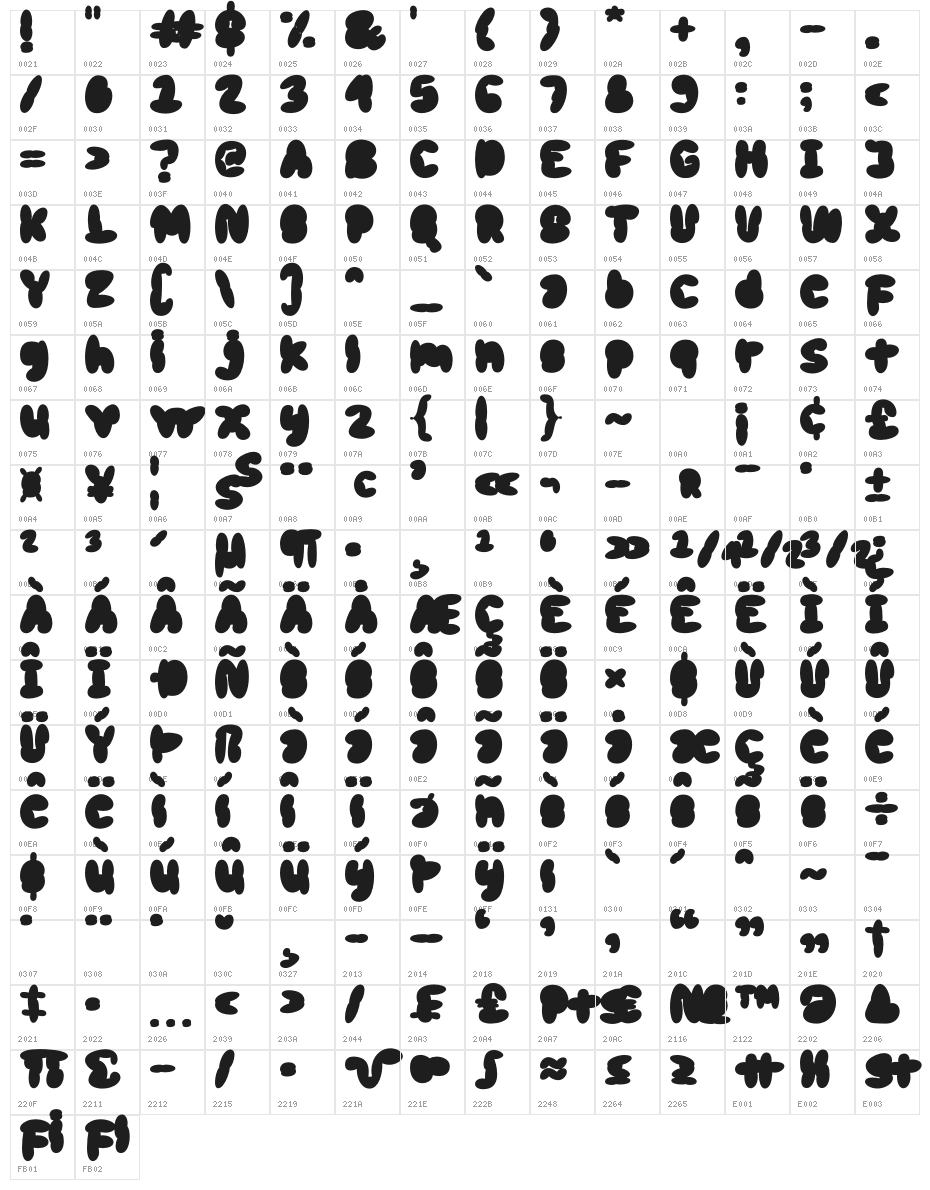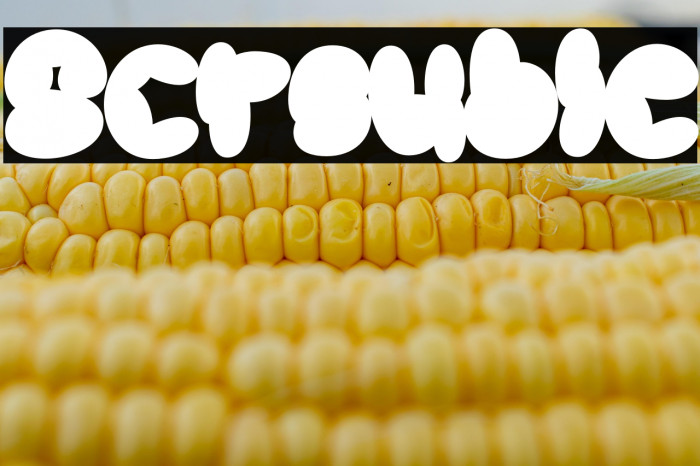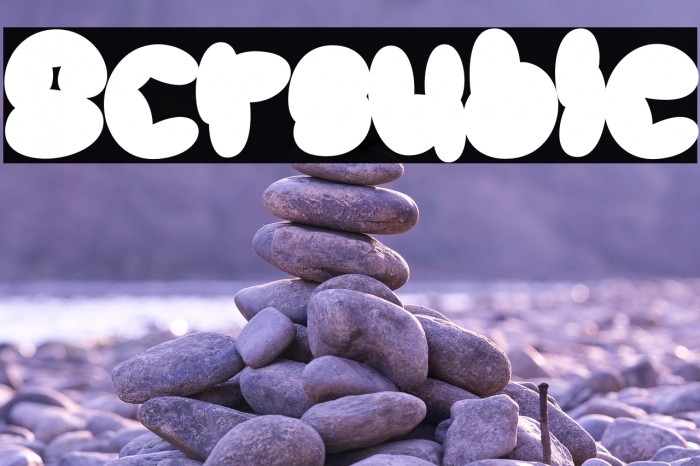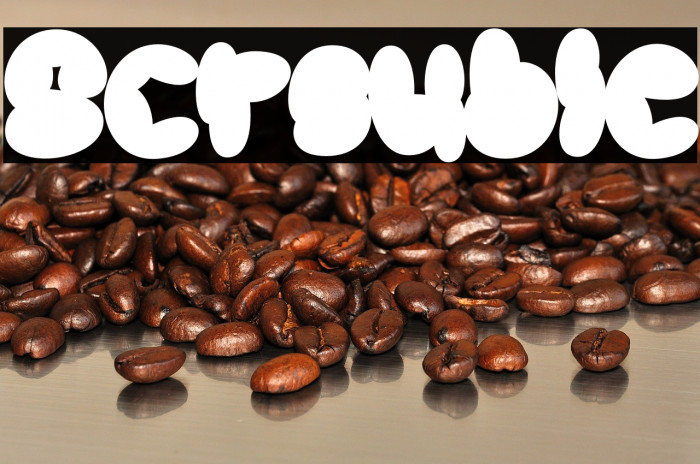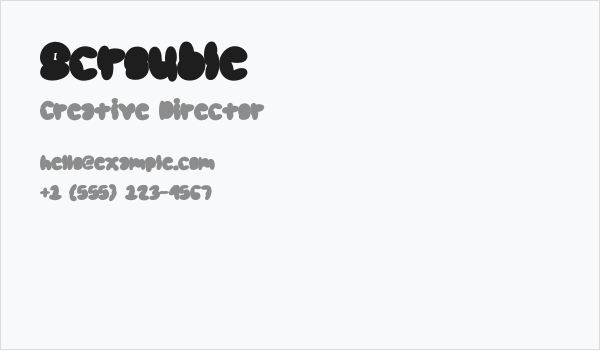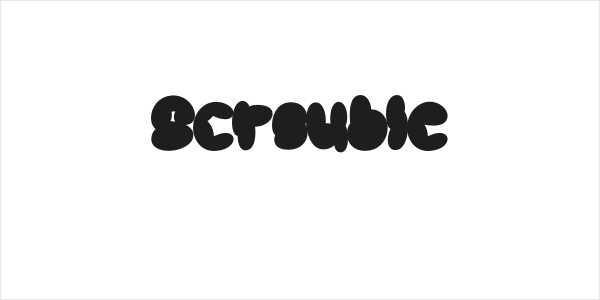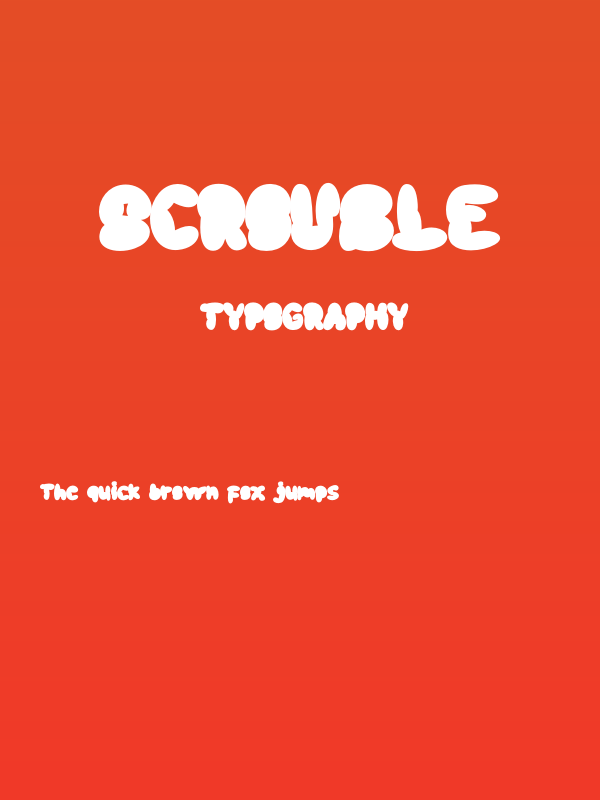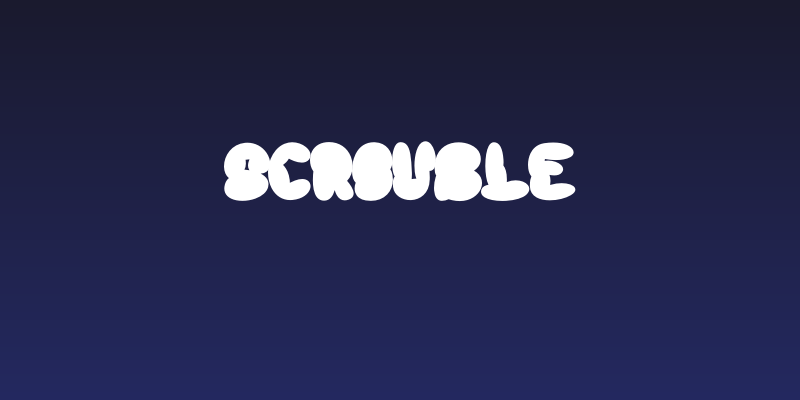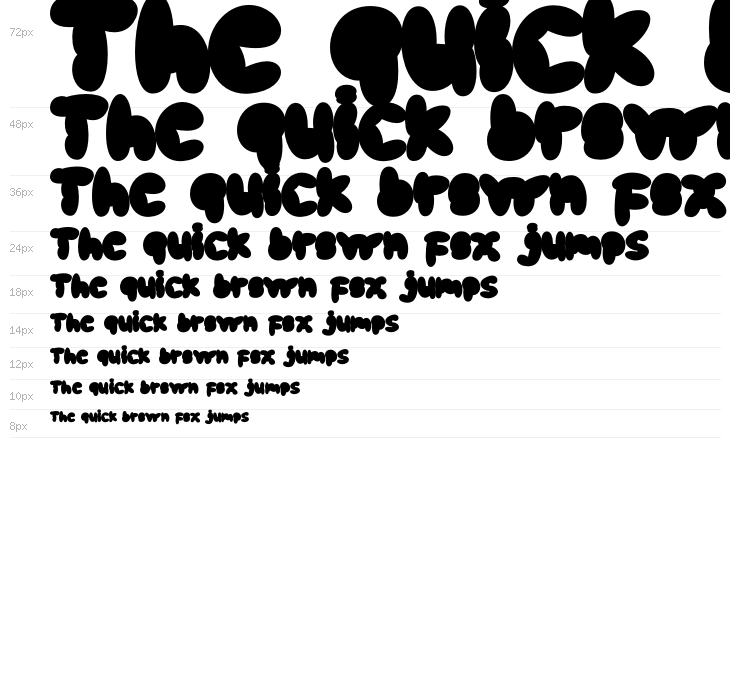
Scrouble Font
Scrouble Description
This font features a bold and playful design with rounded, bubble-like characters that convey a sense of fun and whimsy. The letters are thick and heavy, creating a strong visual impact. Each character is uniquely shaped, with exaggerated curves and a slightly irregular form, adding to its quirky and informal appearance. The font maintains a consistent weight throughout, with minimal contrast in stroke thickness. Its distinctive style makes it ideal for projects that require a bold and eye-catching typeface.
Overall StylePlayful, Quirky
Use CaseHeadlines, Logos, Posters
Proposed ProjectsIdeal for children's books, playful branding, party invitations, and creative posters.